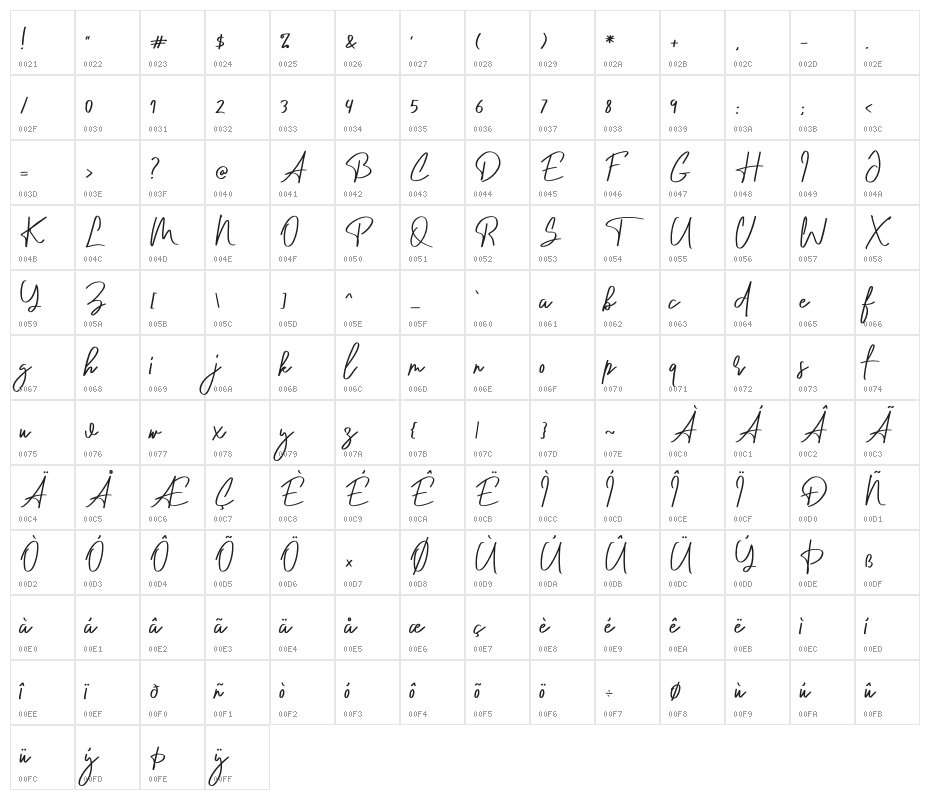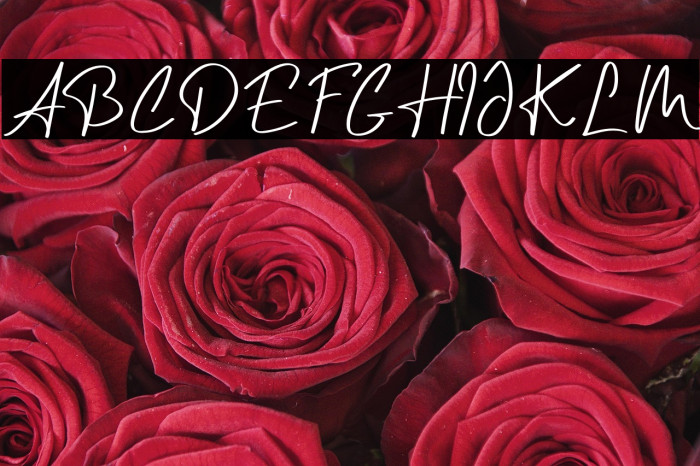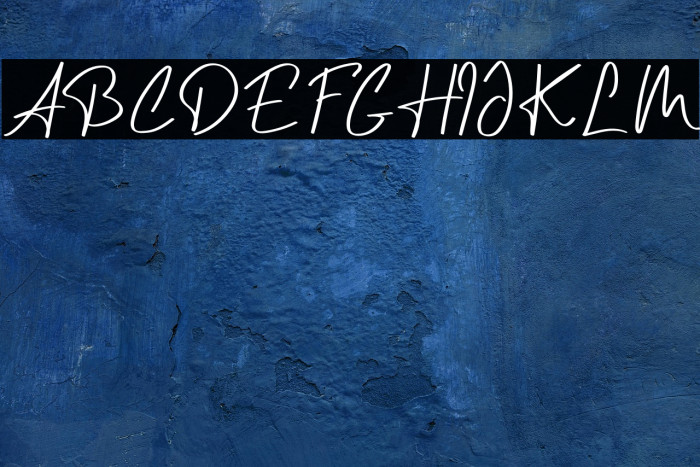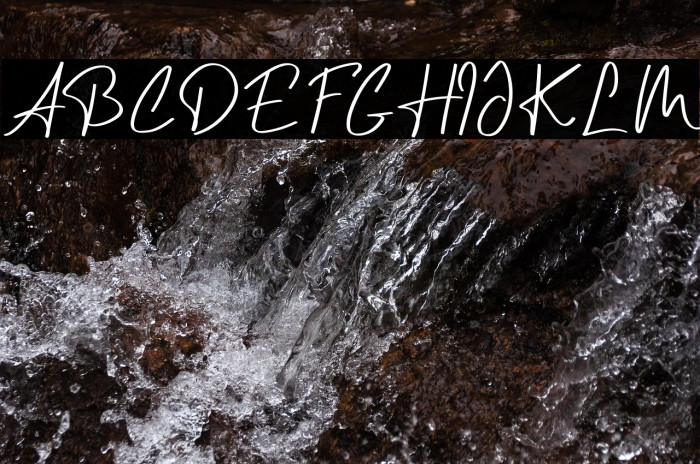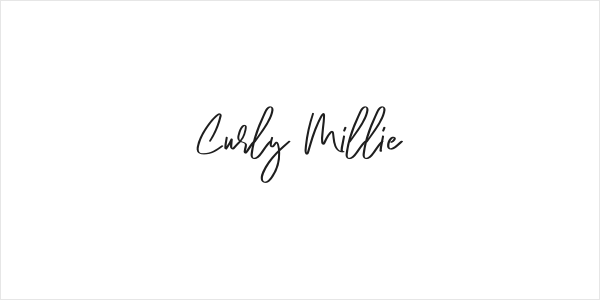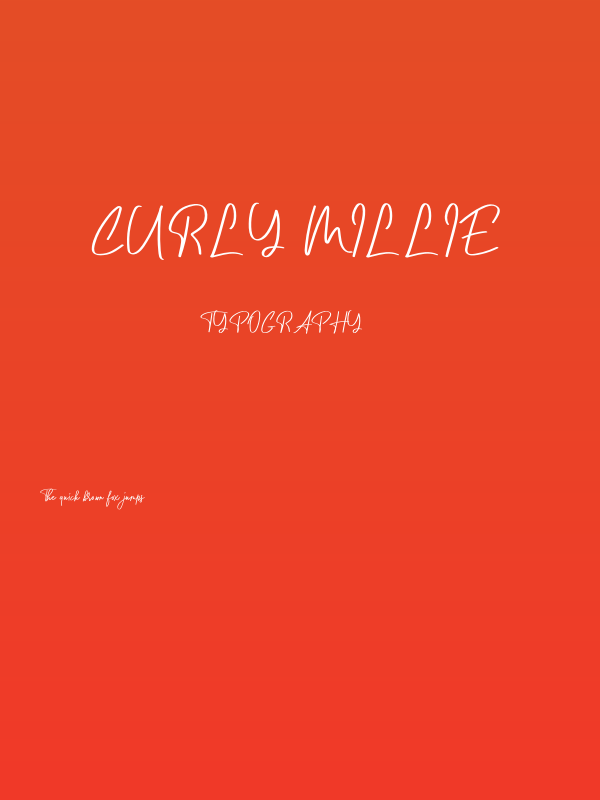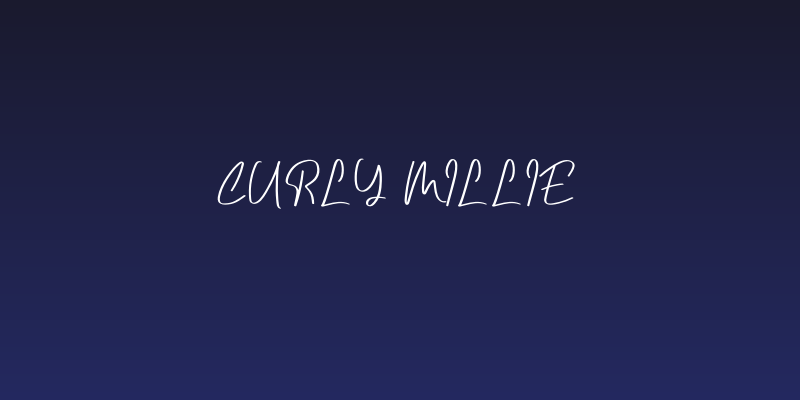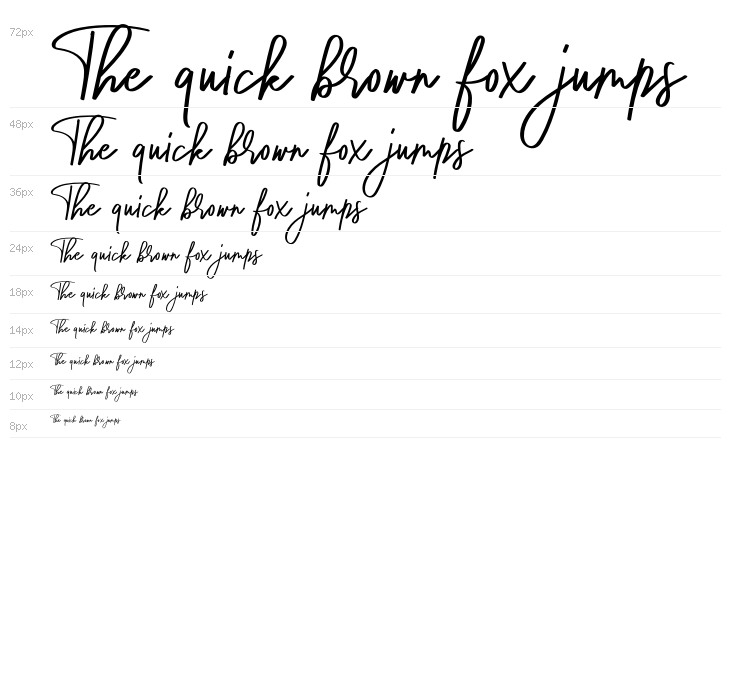
Curly Millie Font
Curly Millie Description
This font features a playful and elegant handwritten style, characterized by its flowing, cursive letterforms. The uppercase letters are tall and slightly slanted, with a whimsical flair that adds a sense of movement and personality. The lowercase letters maintain a consistent style, with loops and curves that enhance the font's fluidity. The numbers are clear and legible, matching the overall aesthetic. Special characters are creatively integrated, maintaining the font's unique style. This font is ideal for projects that require a personal touch, such as invitations, greeting cards, and branding materials.
| Use Case | Logos, Headlines, Personal projects |
| Proposed Projects | Ideal for invitations, greeting cards, branding materials, and personal projects. |